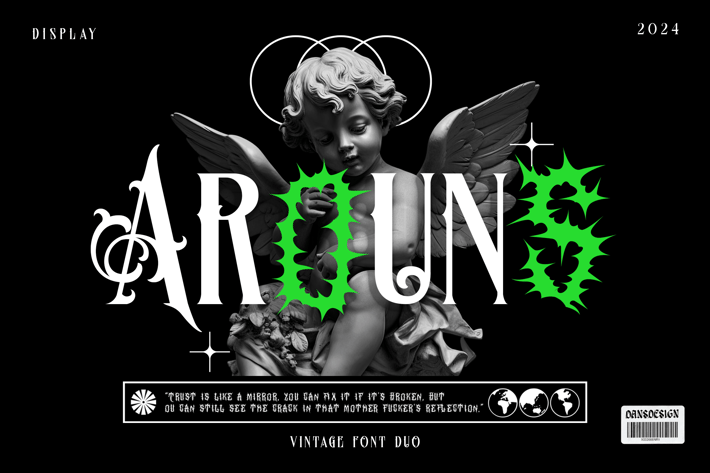
Arouns Blackletter Horror Duo Font
Arouns Blackletter Horror Duo Font a distinct, highly detailed, and chic Blackletter Duo font.
It would make a great choice for exquisite retro-urban designs, tattoo business branding, logos, vintage designs, movie, poster, apparel, illustration, and more.